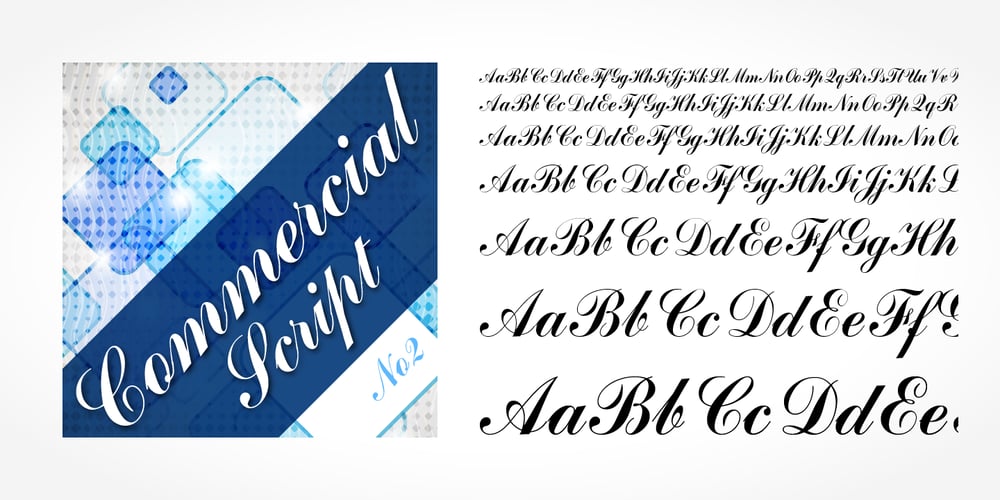
Commercial Script No2
Commercial Script No2 font
Commercial Script No2 Font Family was designed by Morris Fuller Benton and published by SoftMaker. Commercial Script No2 contains 1 styles and family package options. Commercial Script No2 is a bold weight of a moderately flourished script published by SoftMaker.